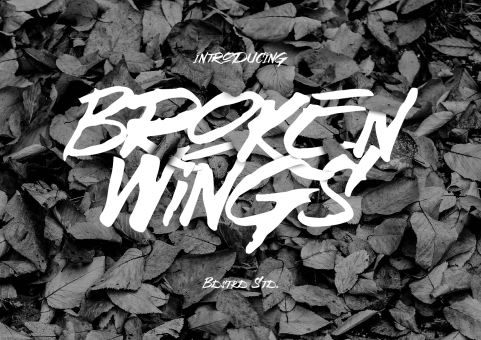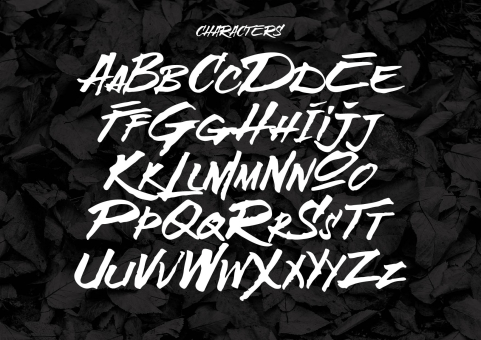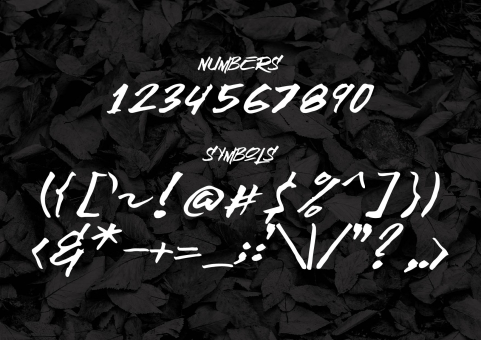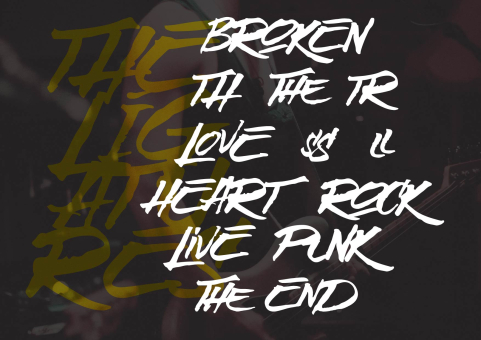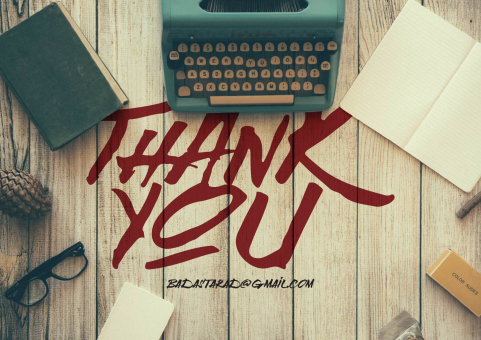
Broken Wings Typeface
Broken Wings Typeface is a solution for the design Poster Music, Clothing (T-Shirt), Movie Posters, and others. Broken Wings typeface designed specifically for the needs of conveying the message that is Horror, Loud, Quiet, and Broken Hearts.
Broken Wings Typeface made with handdrawn, by inserting a bit of a modern twist, will make you a more attractive design.